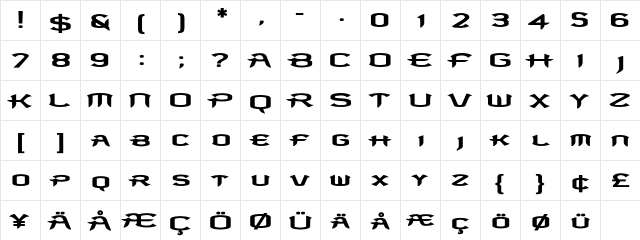
Antigen Regular
| Foundry | by Jeremy Dooley |
Design Context for Antigen Typeface
Antigen is a composed and adaptable typeface that performs quietly and consistently across a wide range of design contexts.
Pro Tip: Pair Antigen with a font of contrasting weight or personality to build a more expressive typographic hierarchy.